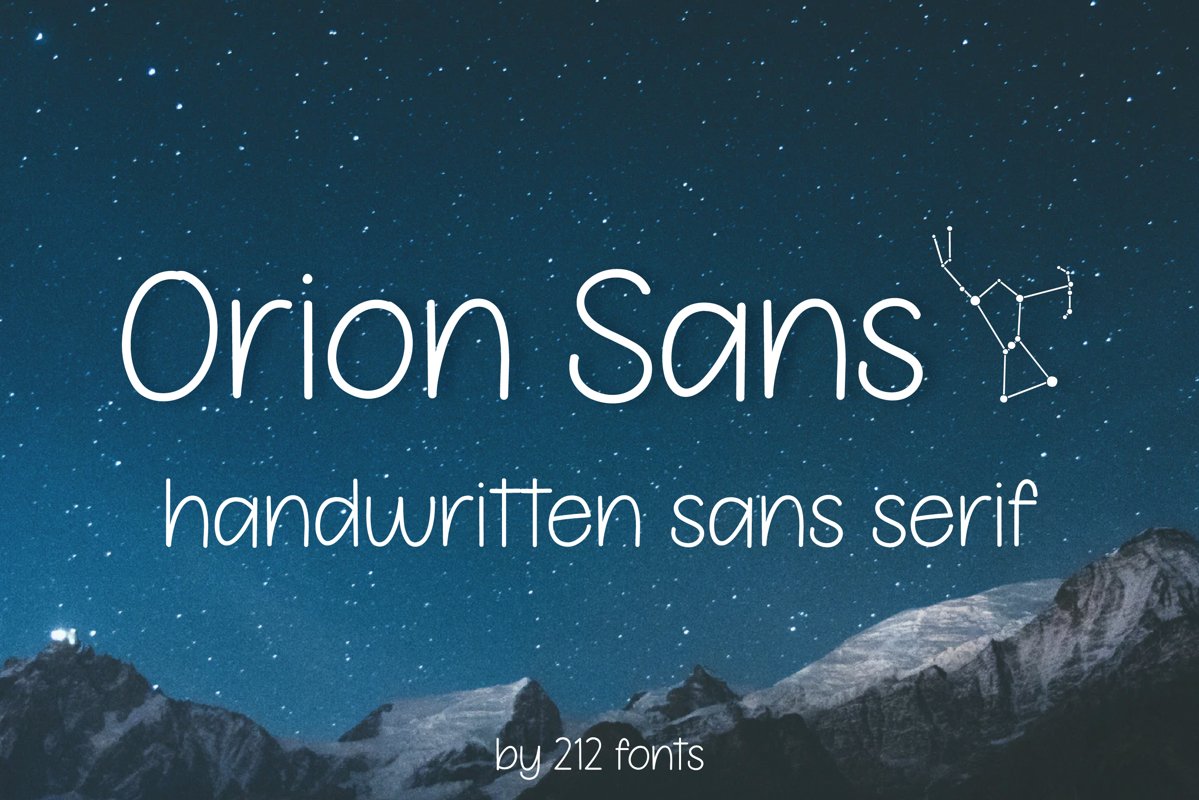
Orion Sans Serif Handwritten Optimistic Girly OTF Font
212 Orion Sans
Orion Sans is a clean, handwritten font that is very legible, neat and optimistic.
Perfect for Invitations, Branding, Logos, Greeting Cards and Quotes.